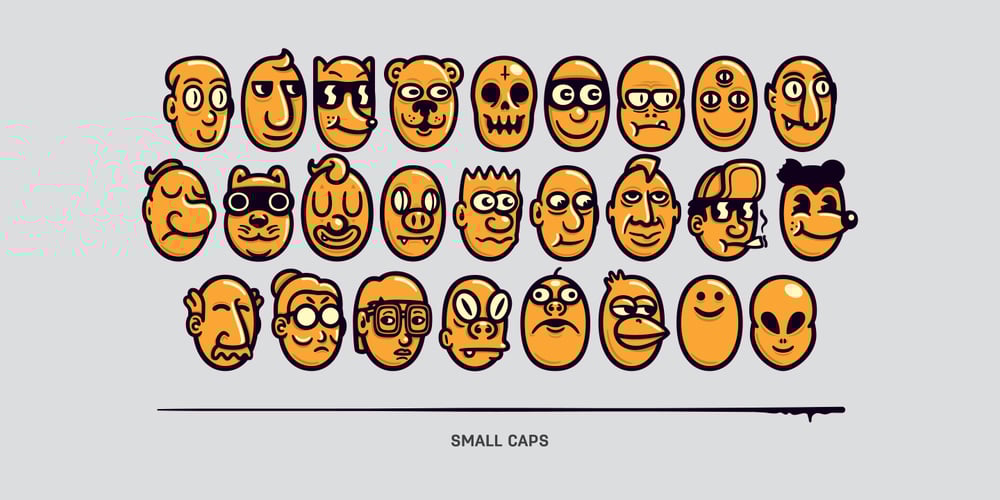
Infamy
Infamy font
Infamy Font Family was designed by Santiago Sancha and published by Latinotype. Infamy contains 4 styles and family package options. Infamy is a display typeface inspired by graffiti and street art, featuring the ‘bubble letter’ style of writing which was very popular among subway and suburban graffiti artists in the early days of American graffiti. This font recovers graffiti horizontal alignment, tight tracking and colourful lettering. The OpenType version includes many different ligatures which provide multiple options when composing a text. Multiple layers make Infamy a bright, shaded and colourful font, allowing you to dress up your writing. This font incorporates a pictorial rendering of character faces (instead of small caps), capturing the essence of the graffiti: the ‘childish’ and the ‘irresponsible’, which is present in the experimental side of the typeface.